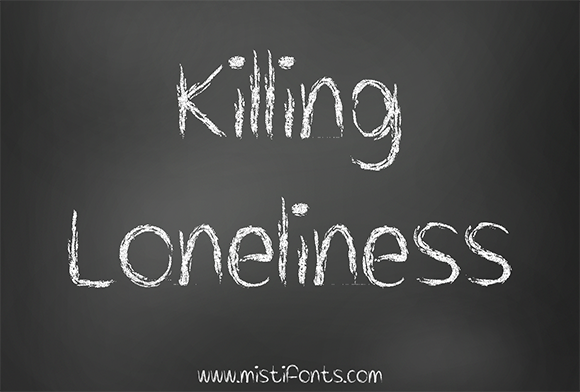
HomeScript FontsKilling Loneliness Font Script Fonts Killing Loneliness Font FacebookXPinterestWhatsApp About Killing Loneliness Font Killing Loneliness is a chalky, crayon inspired font that is perfect for your craft and design projects! DOWNLOAD ON CREATIVE FABRICAThis font is sold and delivered by Creative Fabrica. Font Canyon may earn a commission if you buy through this link. People also explored Fluffy Font Haluwa Font Lure Font Pallawa Font Sarmilla Script Font Oldera Font Richela Font Dannieffa Stefania Font Holliston Script Font 306 0 TagsKilling Loneliness Font Previous articleTechnically but Not Actually FontNext articleFine Again Font LEAVE A REPLY Cancel reply Comment: Please enter your comment! Name:* Please enter your name here Email:* You have entered an incorrect email address! Please enter your email address here Website: Save my name, email, and website in this browser for the next time I comment. Personal Use Free Butter Belly Personal Use Free Read more about this font Zojihun Personal Use Free Read more about this font Little Pigeon Personal Use Free Read more about this font Valentines Day Personal Use Free Read more about this font BLOG Exploring Font Trends Shaping Communication in the Digital Era Fonts, like all design elements, are subject to trends. They play a crucial role in communicating a brand's personality,... Modern Sans-Serif Fonts That Brands Love in 2025 5 Fonts That Will Dominate Design Trends in 2026 How to Cut Any Font on Cricut: Convert a Font to SVG (Free)